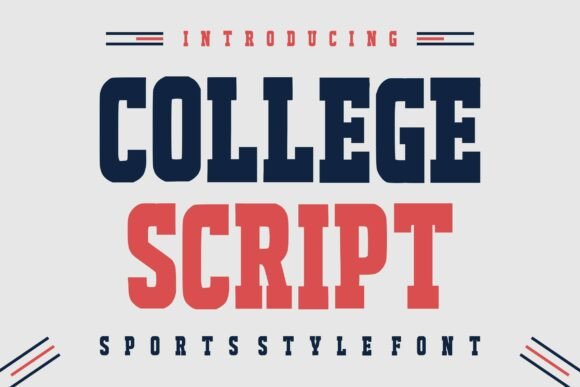
College Script: A Bold, Athletic Font for Dynamic Designs
If you're looking for a font that exudes energy and confidence, College Script is a standout choice. This display font draws inspiration from traditional college and varsity typography, offering a strong, athletic aesthetic that's perfect for a wide range of creative projects. With its bold strokes and dynamic character shapes, College Script brings a sense of power and team spirit to any design.
Whether you're working on sports branding, team logos, or school merchandise, this font delivers a professional varsity look that can elevate your work. Its versatility makes it ideal for everything from posters and gym apparel to YouTube thumbnails and bold headline designs. The font’s personality is as energetic as it is stylish, making it a go-to option for athletic themes across football, basketball, baseball, and more.
What Makes College Script Stand Out?
College Script is more than just a font—it’s a statement. Its visual characteristics are designed to capture the essence of traditional college typography while adding a modern twist. The bold strokes give it a strong presence, while the athletic character shapes add movement and flair. This combination creates a font that feels both powerful and expressive.
The personality of College Script is confident and dynamic, making it an excellent choice for projects that need to make an impact. It works well in both digital and print formats, offering a premium look that stands out in a crowded design landscape. Whether used in logo design, editorial design, or packaging design, College Script adds a layer of authenticity and energy that other fonts might lack.
One of the key strengths of College Script is its ability to convey a sense of community and tradition. Its design evokes memories of old-school sports teams, university mascots, and vintage memorabilia. This makes it a great fit for brands or projects that want to connect with audiences on an emotional level.
Where College Script Shines in Design Projects
College Script is particularly effective in projects that require a strong visual identity. In logo design, for example, it can help create a memorable and impactful brand mark that reflects the values of a team or organization. Its boldness makes it ideal for headlines, banners, and other prominent design elements where visibility is key.
In web design and social media graphics, College Script can be used to grab attention and set the tone for a brand’s online presence. When paired with complementary fonts, it can create a balanced and cohesive look that enhances readability without sacrificing style. For instance, pairing it with a clean sans serif font can provide contrast while maintaining visual harmony.
For print projects like posters, flyers, and merchandise, College Script offers a high-impact solution that commands attention. It’s especially useful in sports-related marketing materials, where the font’s energetic feel aligns perfectly with the theme. In packaging design, it can help differentiate a product on the shelf, making it more appealing to consumers.
When used in editorial design, such as magazine covers or book titles, College Script adds a touch of sophistication and flair. Its unique character shapes make it stand out in a way that traditional serif or sans serif fonts often can’t. This makes it a valuable addition to any designer’s toolkit, especially when working on projects that require a distinctive visual identity.
How College Script Influences Design and Branding
The choice of font can have a significant impact on how a brand is perceived. College Script, with its strong and confident appearance, can help reinforce a brand’s message of strength, unity, and energy. This is especially important in industries like sports, fitness, and education, where the font’s personality can resonate with the target audience.
Readability is another factor to consider when using College Script. While it’s highly legible at larger sizes, it may not be the best choice for body text due to its stylized characters. However, when used appropriately—such as in headlines, titles, or callout text—it can enhance visual hierarchy and guide the viewer’s eye through a design.
Consistency is key in branding, and College Script can play a role in maintaining a cohesive look across different platforms. By using it consistently in logos, marketing materials, and digital assets, a brand can build recognition and establish a strong visual identity. This consistency helps create a sense of trust and professionalism that resonates with audiences.
Audience engagement is also influenced by the font choice. College Script’s energetic and athletic vibe can help connect with younger demographics who value style and authenticity. It can also appeal to older audiences who appreciate the nostalgia and tradition it represents.
Choosing the Right Font for Your Project
When considering College Script for a project, it’s important to evaluate how well it fits the overall design concept. Ask yourself: Does the font match the tone and message of the project? Will it enhance the visual appeal without overwhelming the content? These questions can help determine whether College Script is the right choice.
Font pairing is another crucial aspect. While College Script is a strong display font, it often works best when paired with simpler, more neutral typefaces. This allows it to shine without competing with other elements in the design. Experimenting with different combinations can lead to more balanced and visually appealing results.
Testing the font in different contexts is also recommended. View it at various sizes, on different backgrounds, and in different layouts to see how it performs. This will help ensure that it meets the project’s needs and maintains its effectiveness across all applications.
Finally, consider the commercial licensing terms. Make sure that the font is properly licensed for the intended use, whether it’s for personal, commercial, or multi-user projects. This ensures that you can use College Script without legal issues or restrictions.
Overall, College Script is a versatile and powerful font that can bring energy and style to a wide range of design projects. Whether you’re creating for sports branding, editorial design, or digital marketing, this font offers a unique and impactful solution that can elevate your work and leave a lasting impression on your audience.